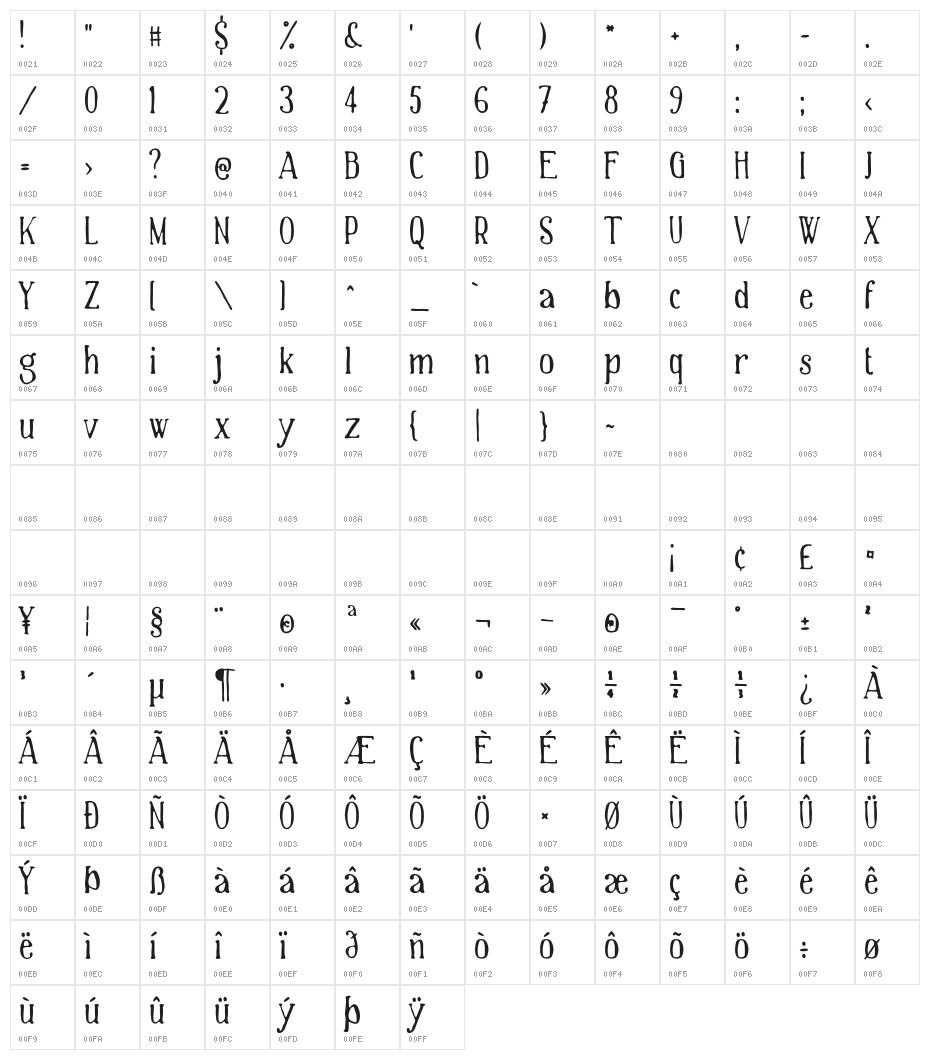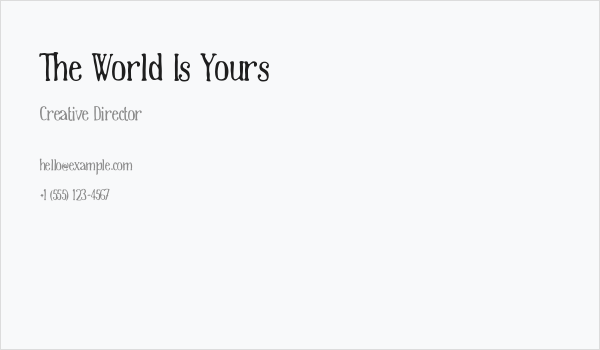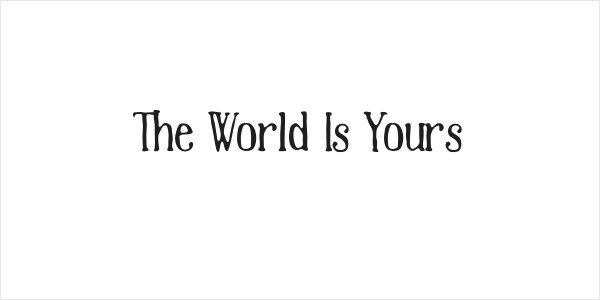
The World Is Yours Font
The World Is Yours Description
This font features a playful and whimsical design with a hand-drawn aesthetic. The characters are slightly irregular, giving it a charming and informal appearance. The uppercase letters are tall and narrow, while the lowercase letters maintain a consistent style with rounded edges and slight variations in stroke width. The numerals and special characters follow the same playful design, making the font versatile for creative projects. The overall look is reminiscent of a casual, handwritten style, perfect for adding a personal touch to any design.
| Proposed Projects | Ideal for children's books, greeting cards, playful branding, and creative posters. |